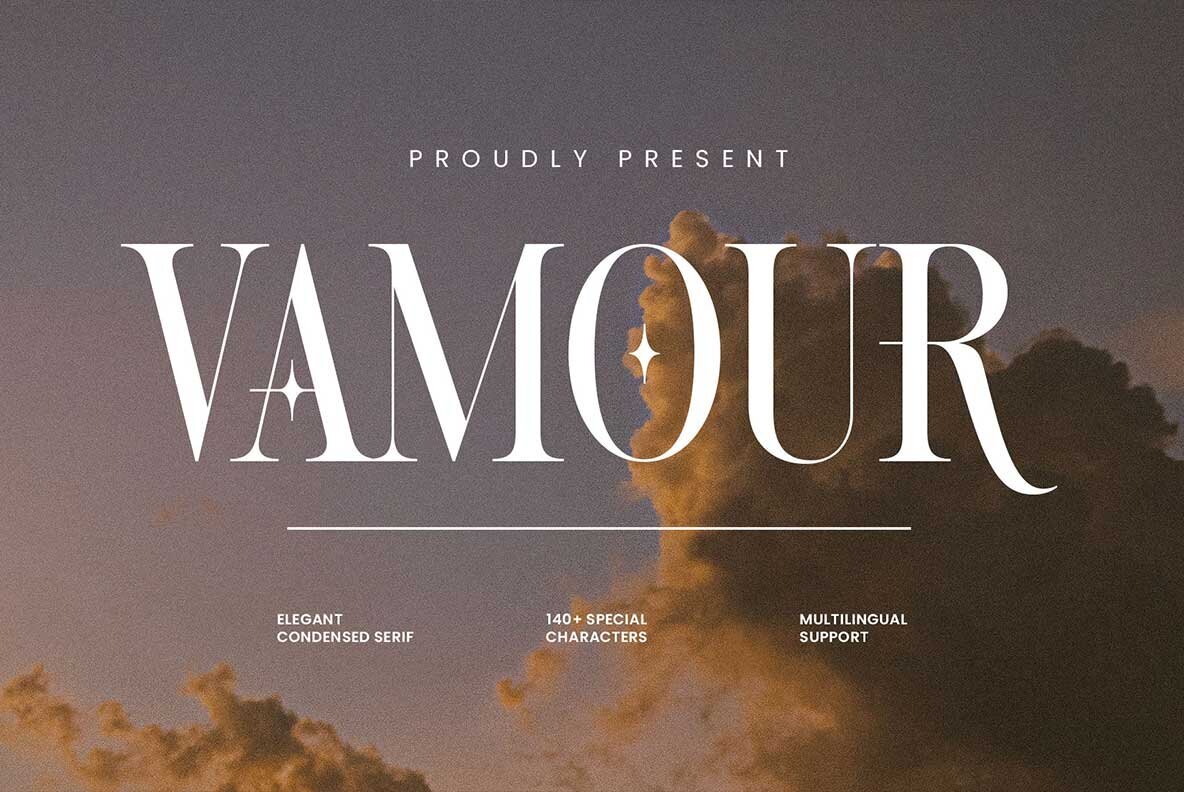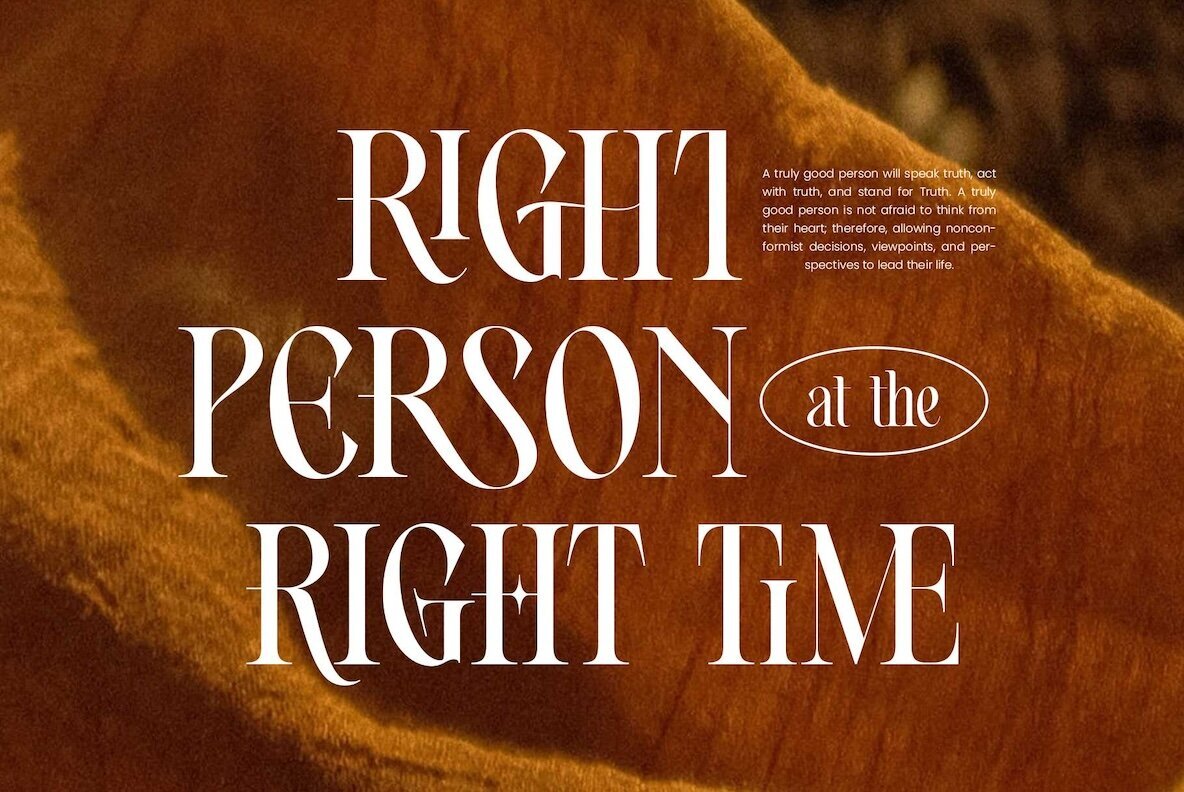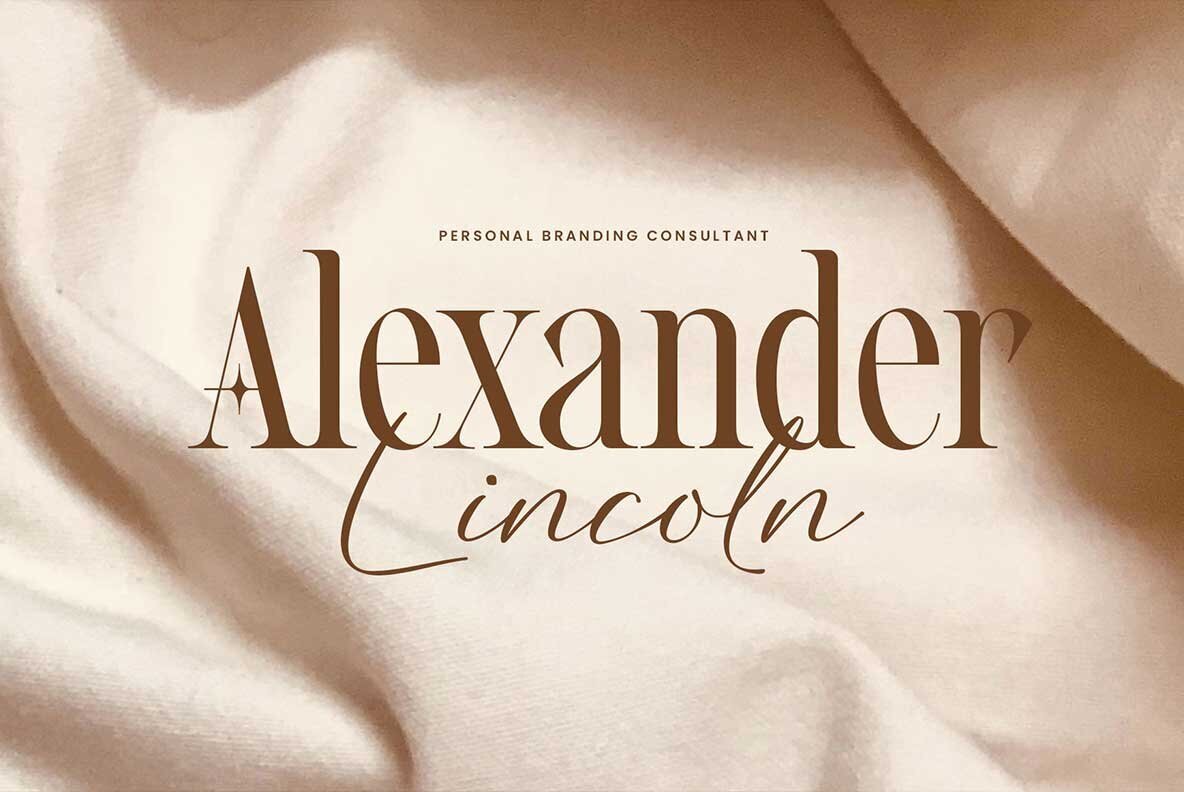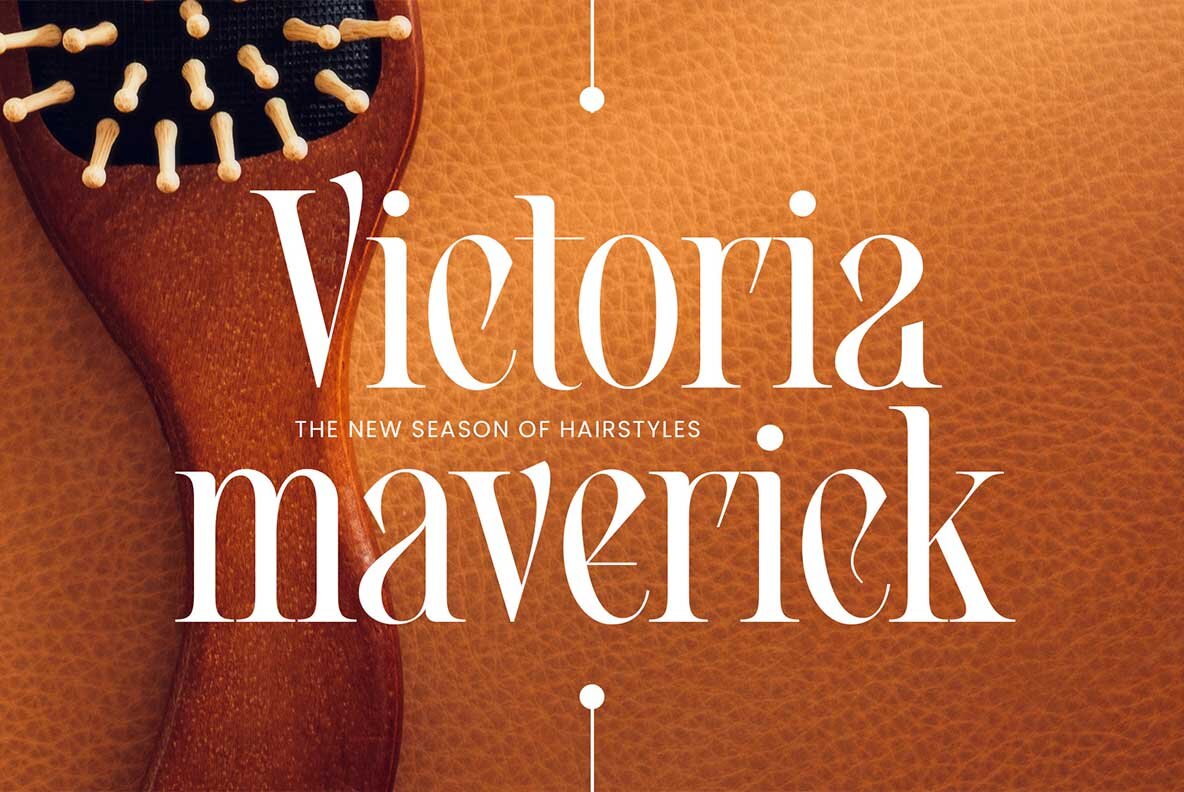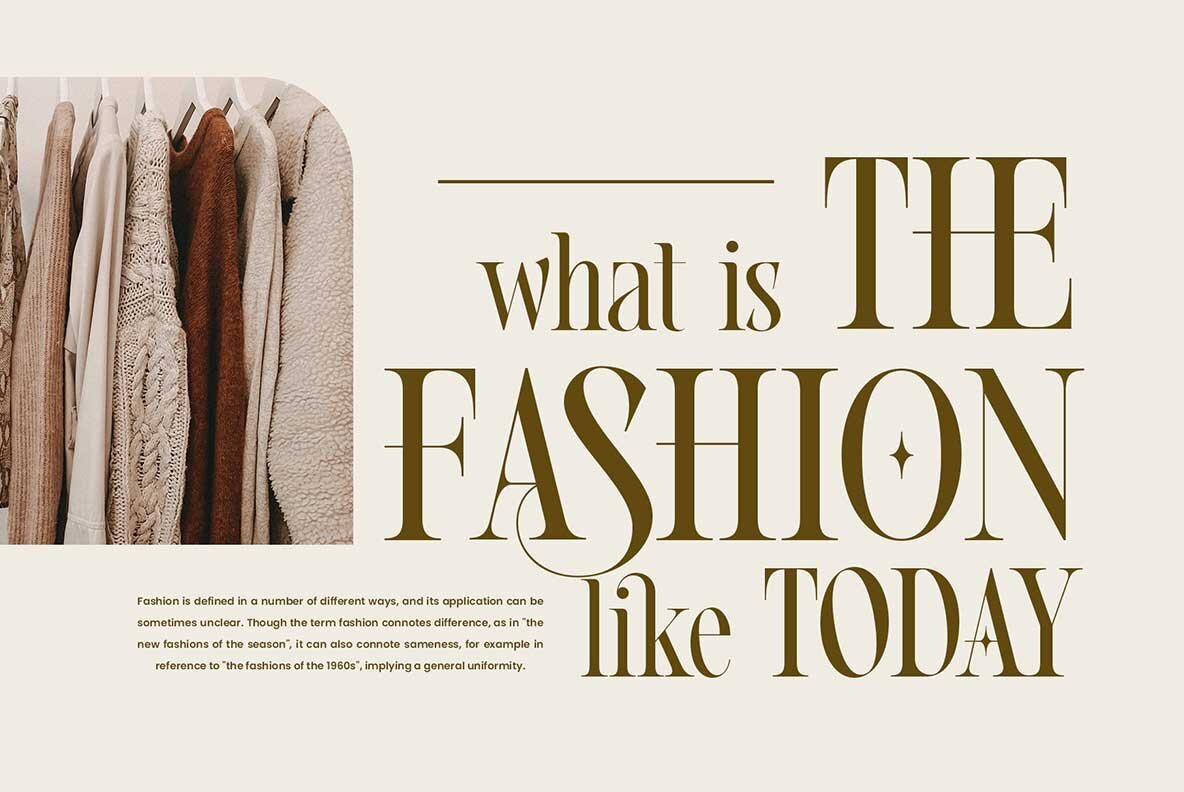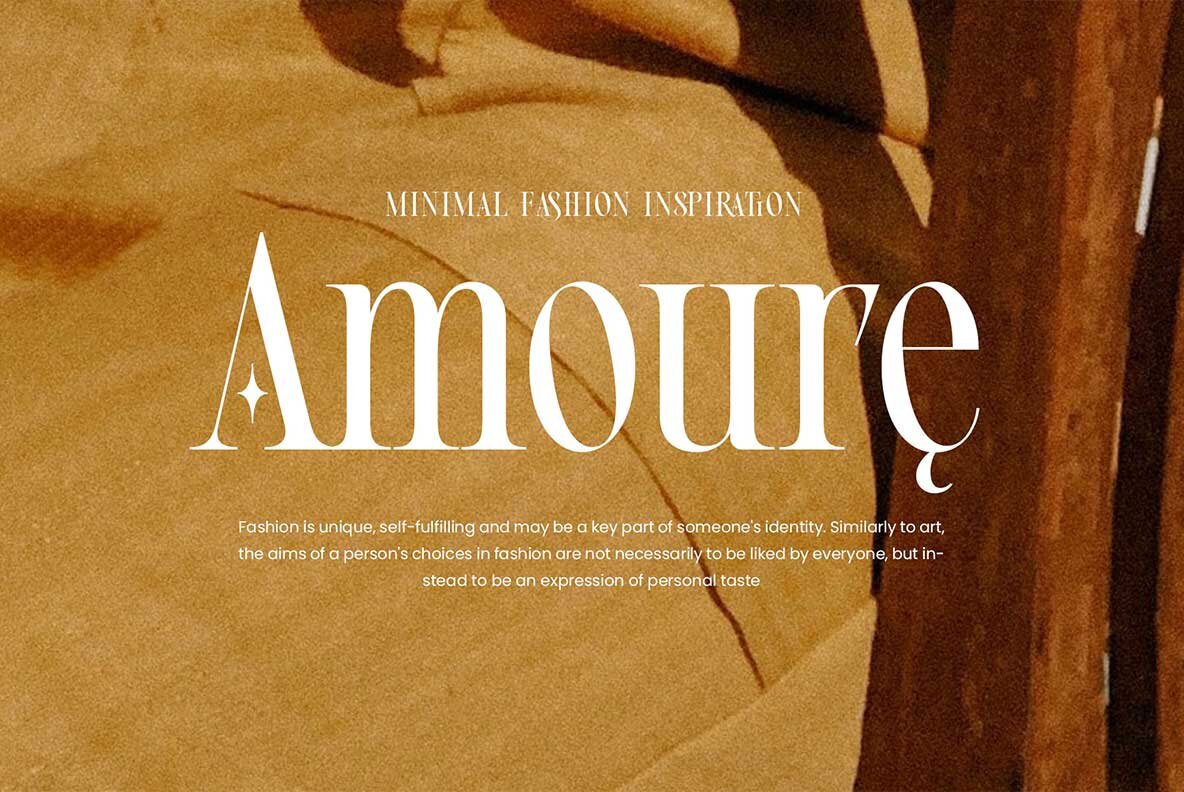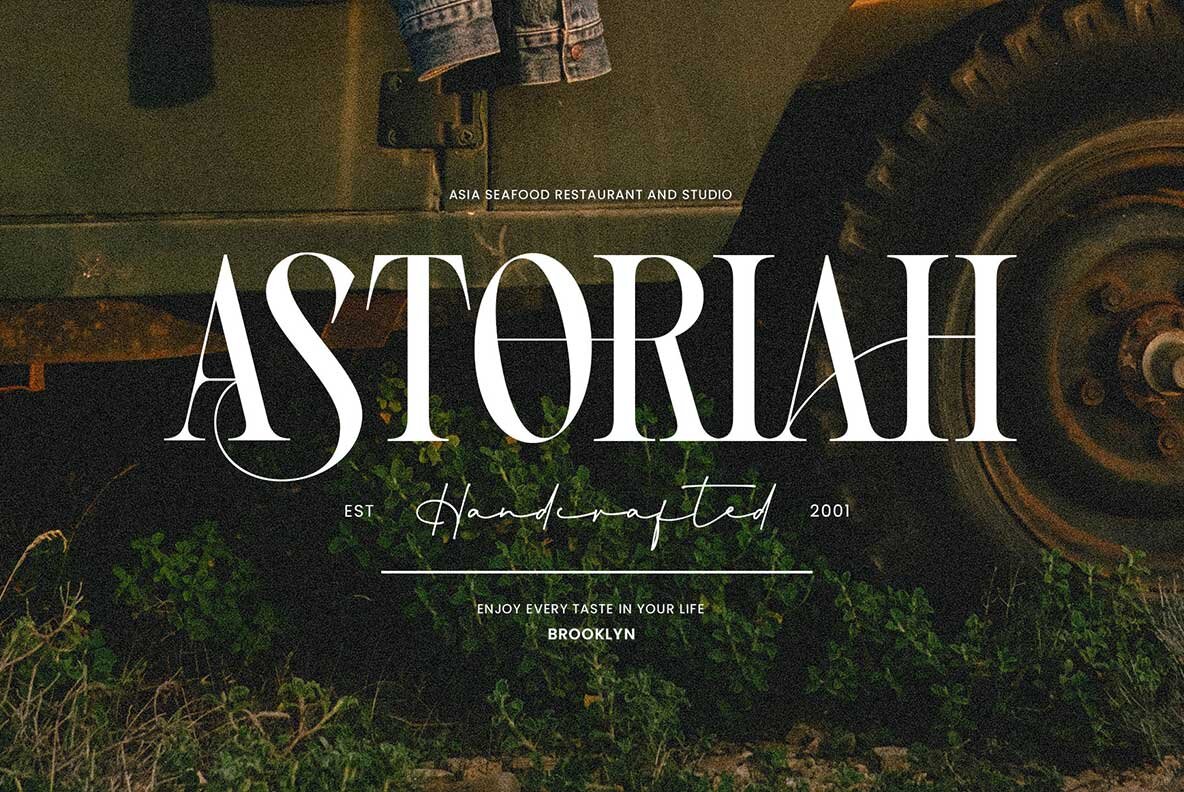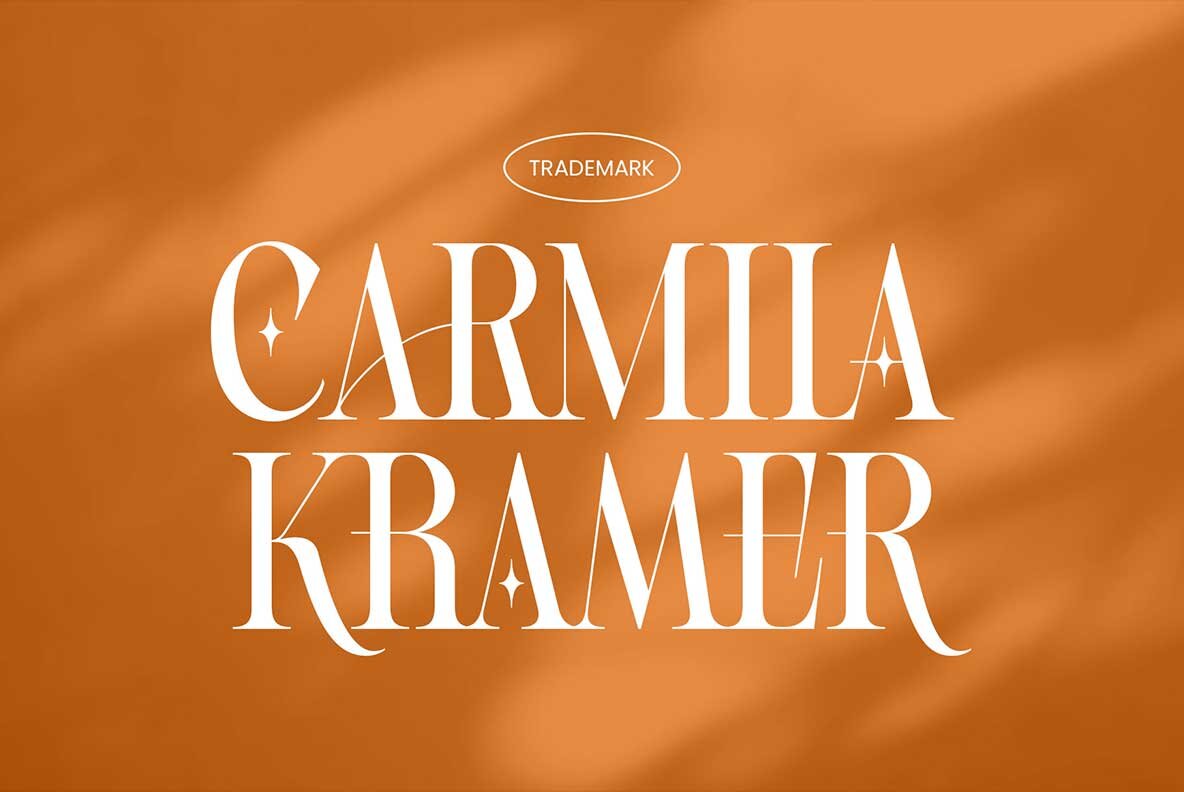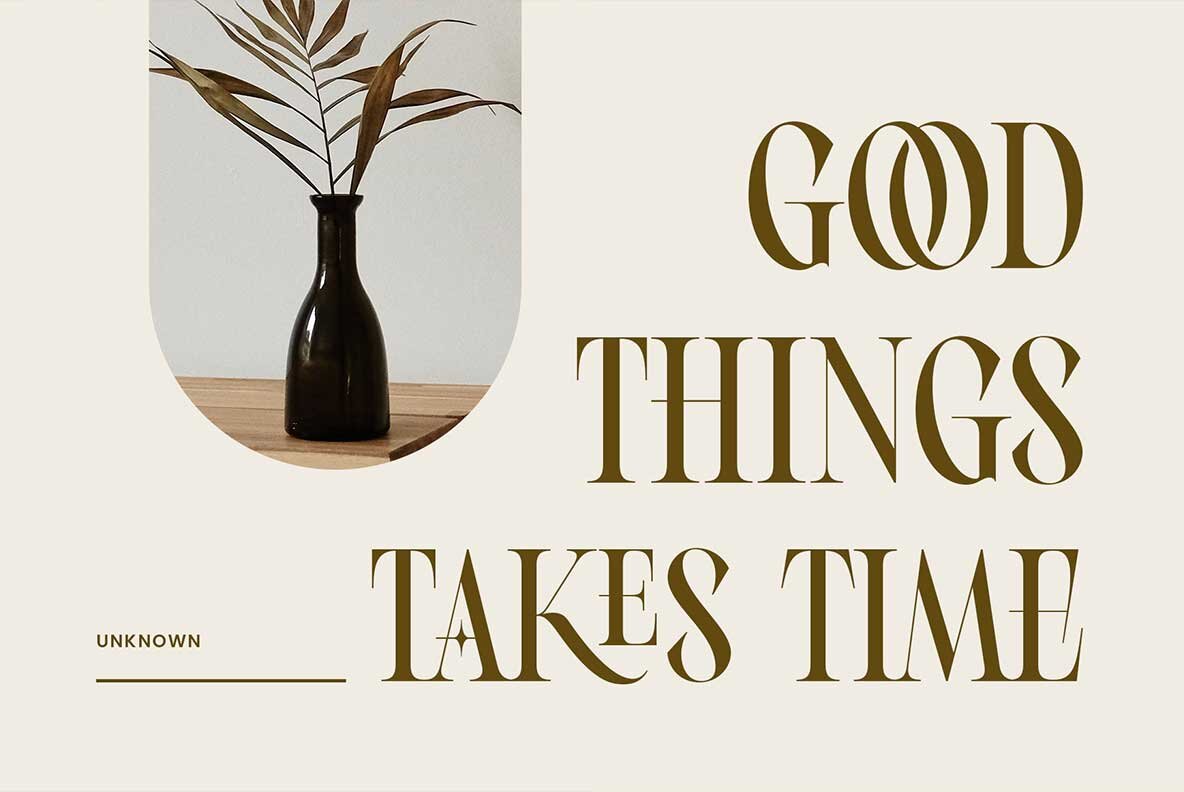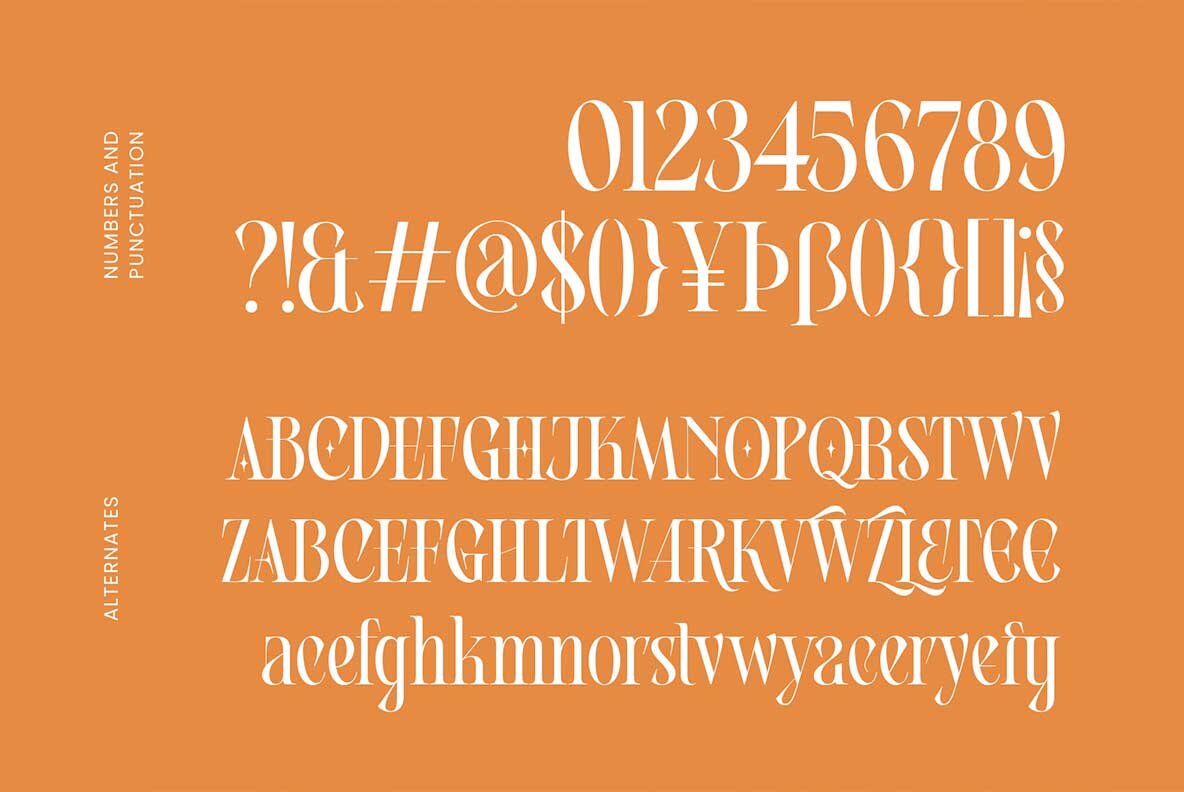
Vamour Font
Vamour Regular
Vamour stands out with its refined blend of elegance and luxury. Its condensed silhouette and modern-classic design bring a sophisticated edge to branding, posters, and editorial layouts. Sleek lines and carefully crafted curves define each letter, making Vamour a distinctive choice for projects that demand a timeless aesthetic. This font's versatility shines in luxury magazine spreads, stylish branding assets, and high-impact quotes. Vamour comes with stylistic alternates and graceful ligatures to give your typography unmistakable character. Multilingual support expands its utility across international design projects, ensuring clarity and prestige in every detail.Vamour — A Statement in Sophisticated Typography